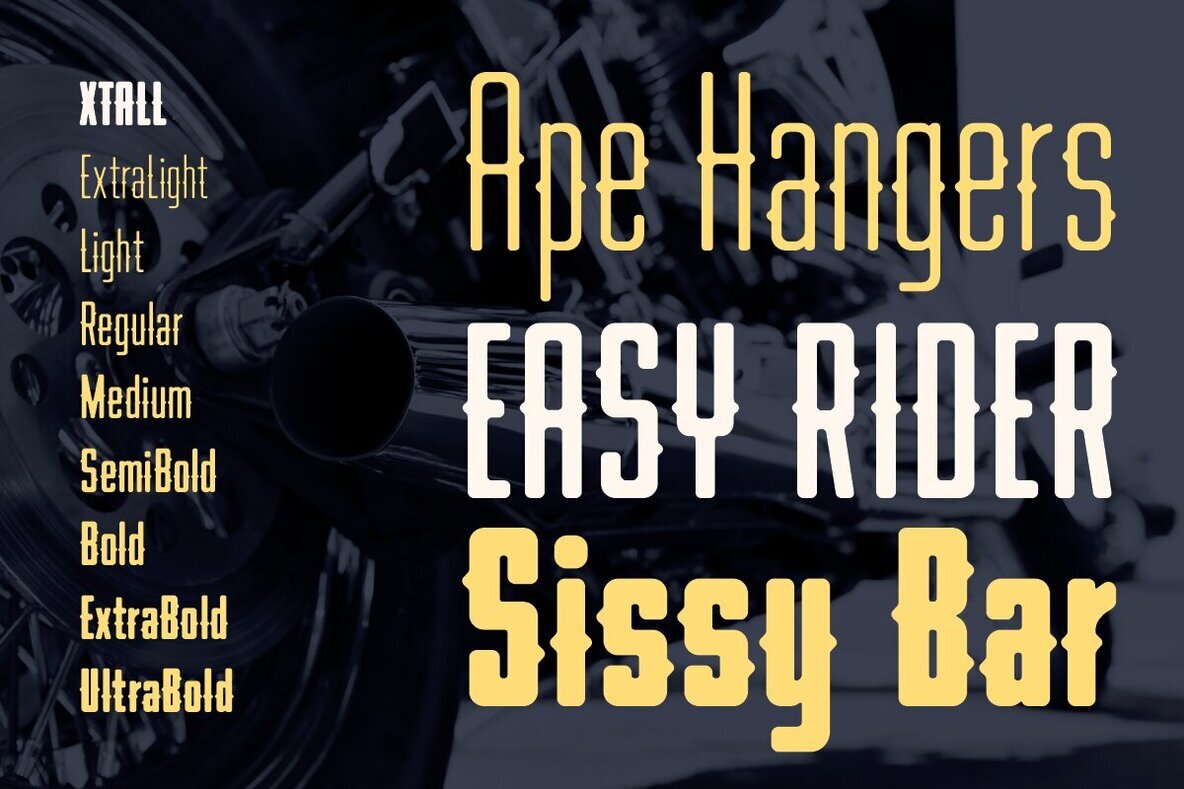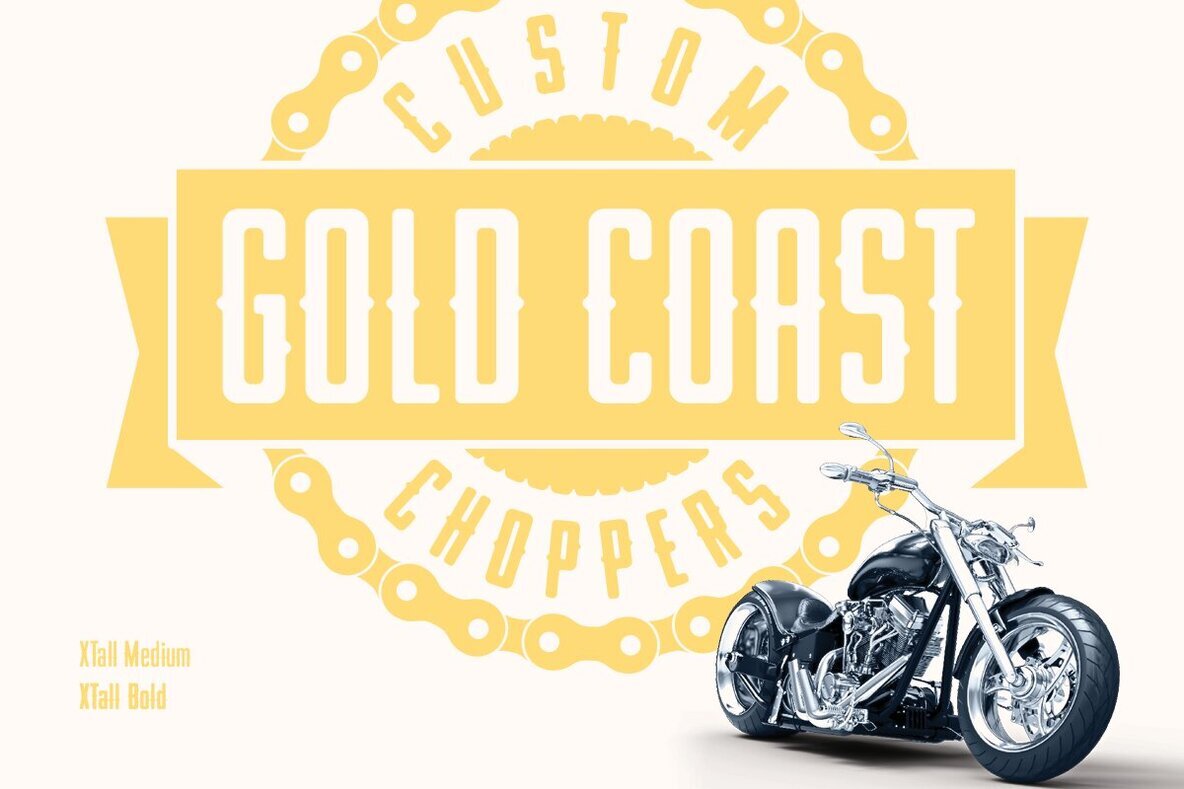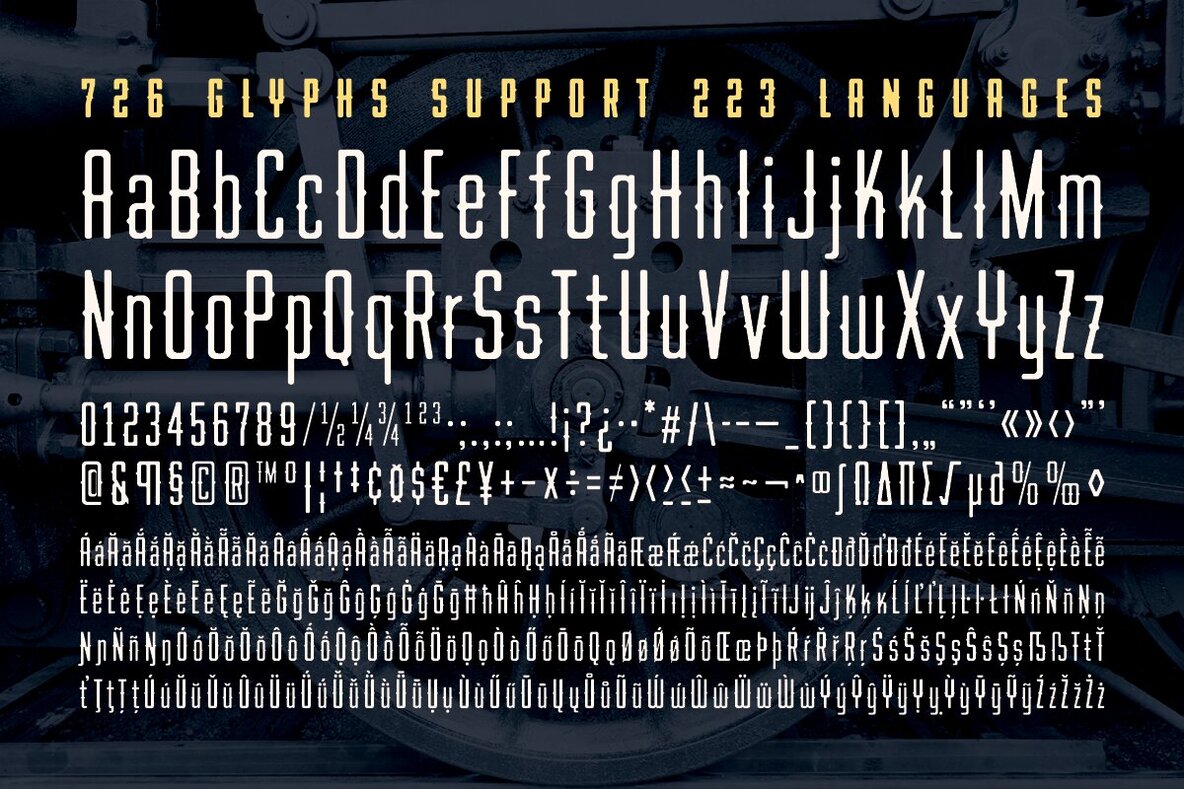
Thornwood XTall Font
Thornwood is Goodland's wild child little sibling. While Goodland graduated college, got a 9 to 5 and bought a house in the suburbs, Thornwood joined a motorcycle club and races dragsters out by the airport after midnight. But when you look past its tough, aggressive center spikes, you'll see Thornwood is actually a bit of a softie, with its subtly rounded corners. Thornwood is ready to rock custom car & motorcycle shop logos, skateboard graphics, liquor labels, metal band logos, bar & grill menus, and anywhere else you need a hard, take-no-prisoners edge tempered by a thoughtful, softer side. And you can always customize Thornwood to your exact preferences with two built-in stylistic sets of alternate letters.